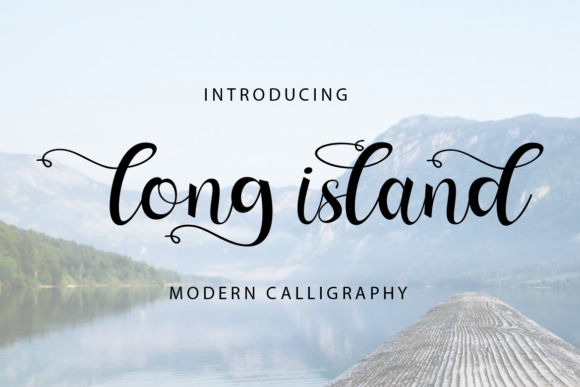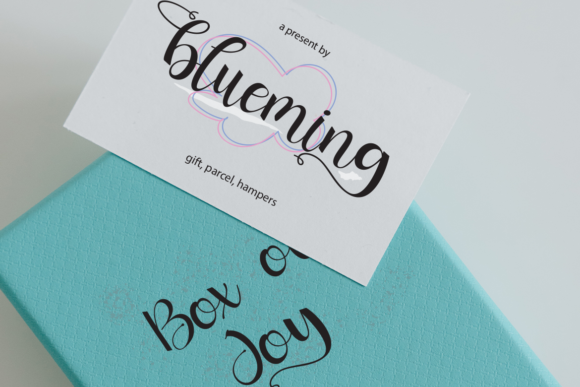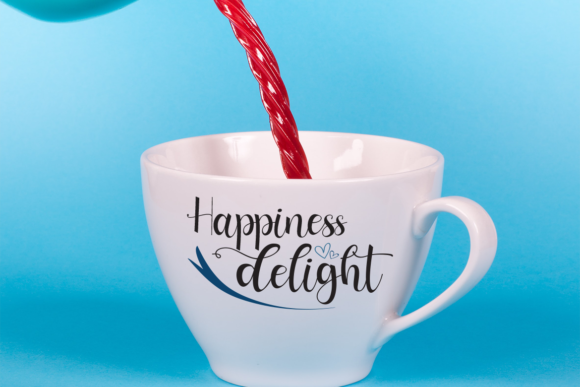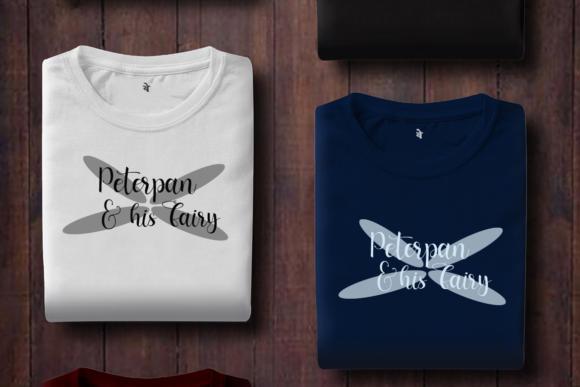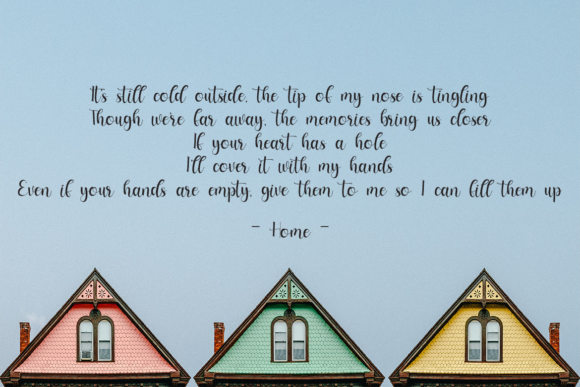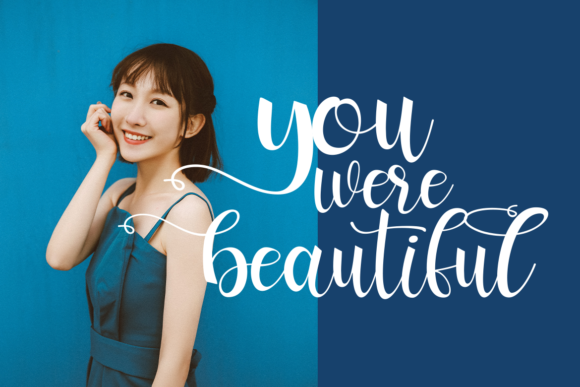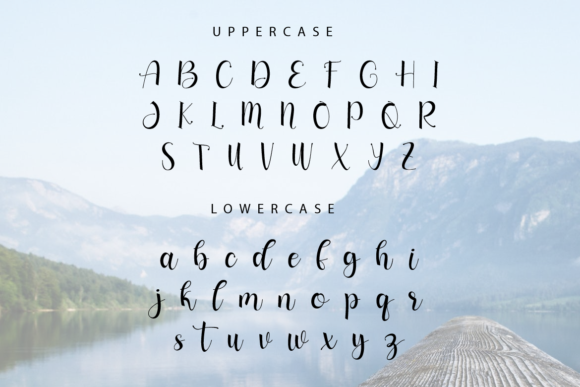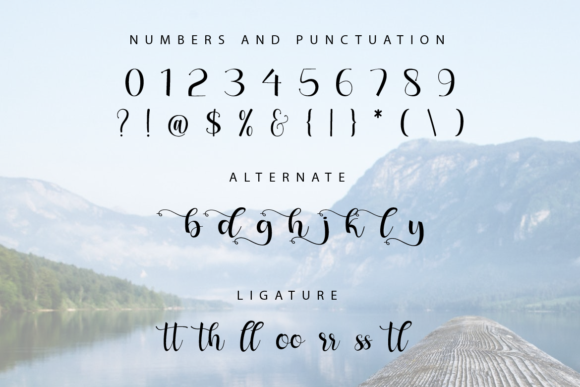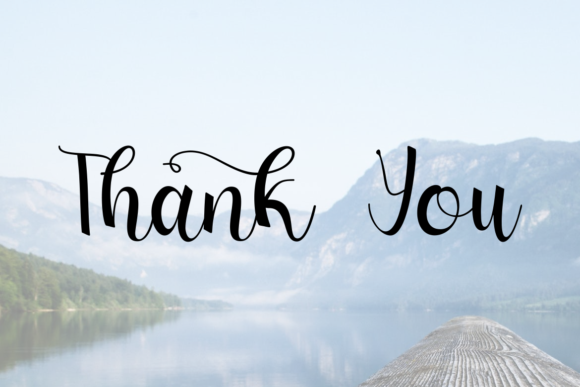
Long Island Font
About Long Island Font
Long Island is a beautiful, round lettered handwritten font. It maintains its classy calligraphic influences while feeling contemporary and fresh. Fall in love with Long Island and bring your projects to the highest levels!